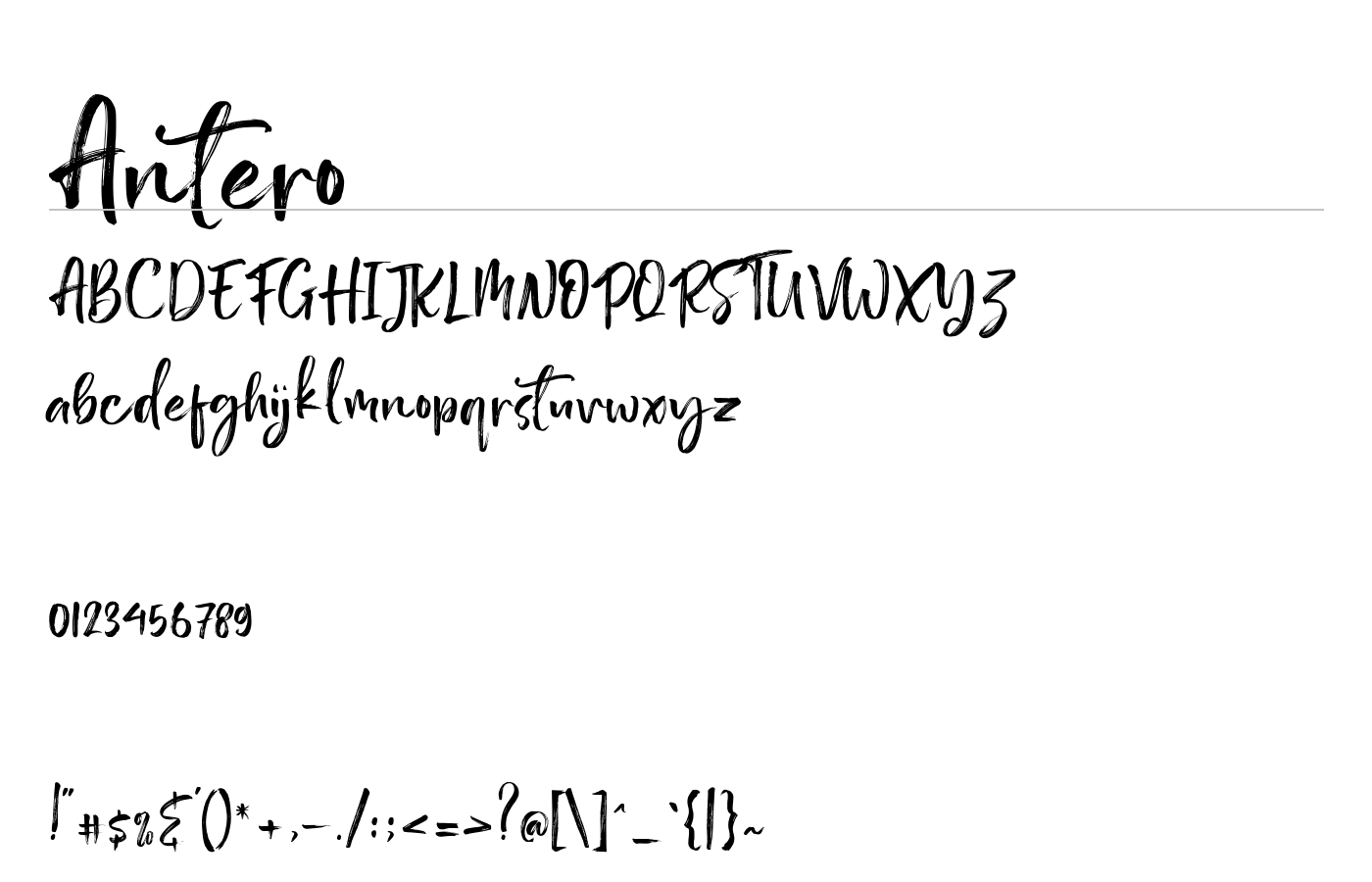
Antero is a lively and expressive handwritten font with a casual yet stylish feel, featuring varied stroke thickness that mimics natural brush lettering. Its tall, slightly condensed letterforms with playful curves make it perfect for creative projects, branding, and designs that require a personal, artistic touch. This font works well for invitations, logos, posters, and social media content, bringing a sense of warmth and uniqueness.
Antero Font
About Antero Font
| Font family | Antero Font |
| Designer | Fran studio |